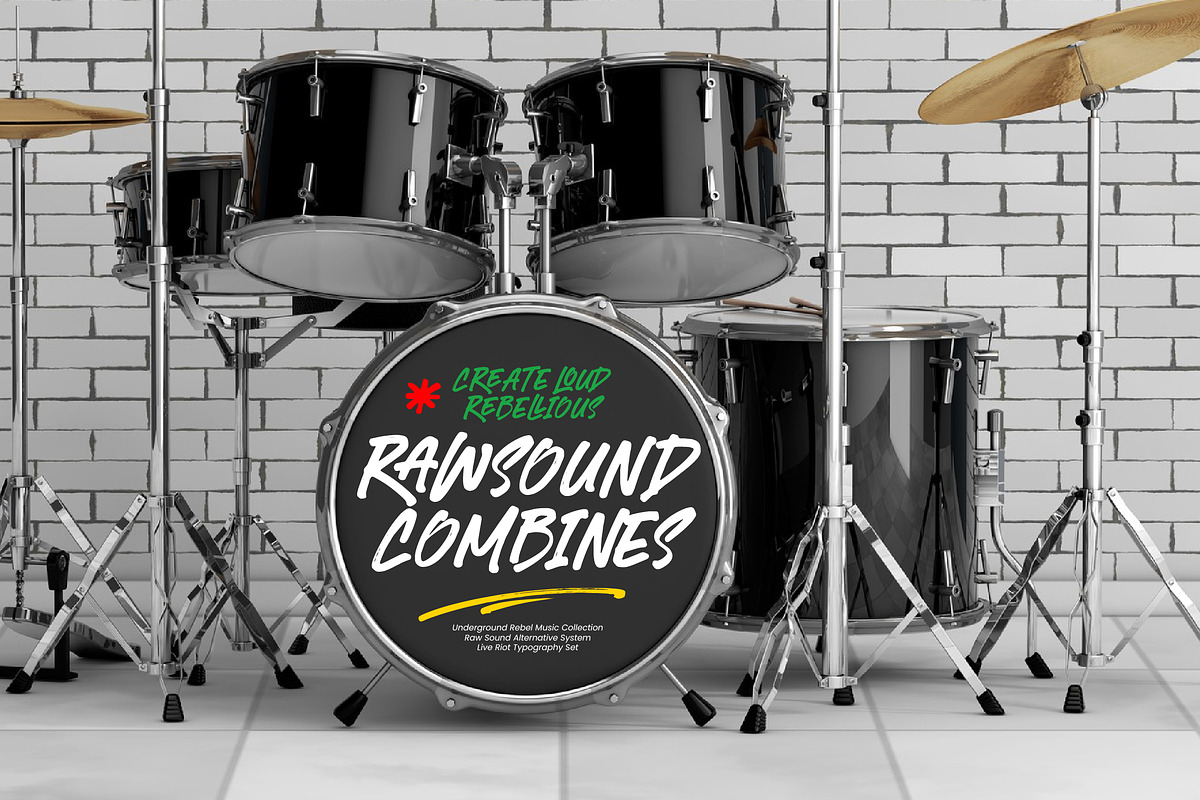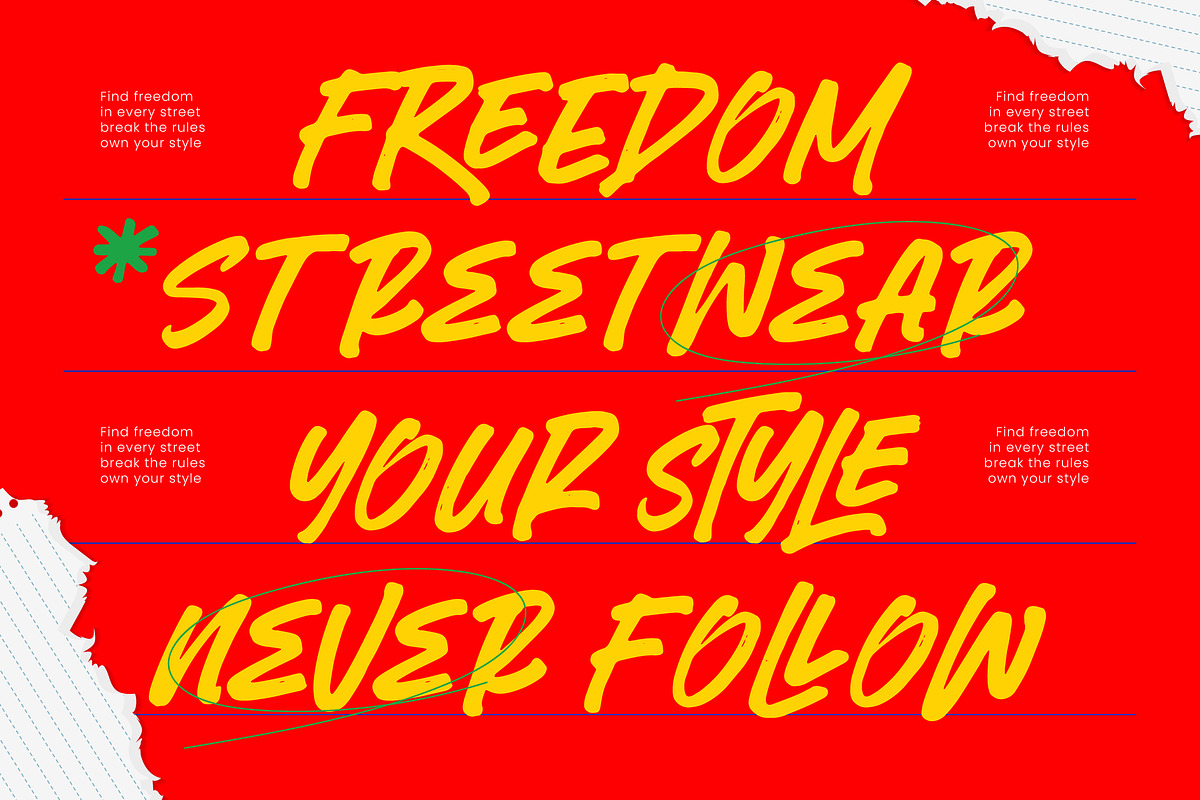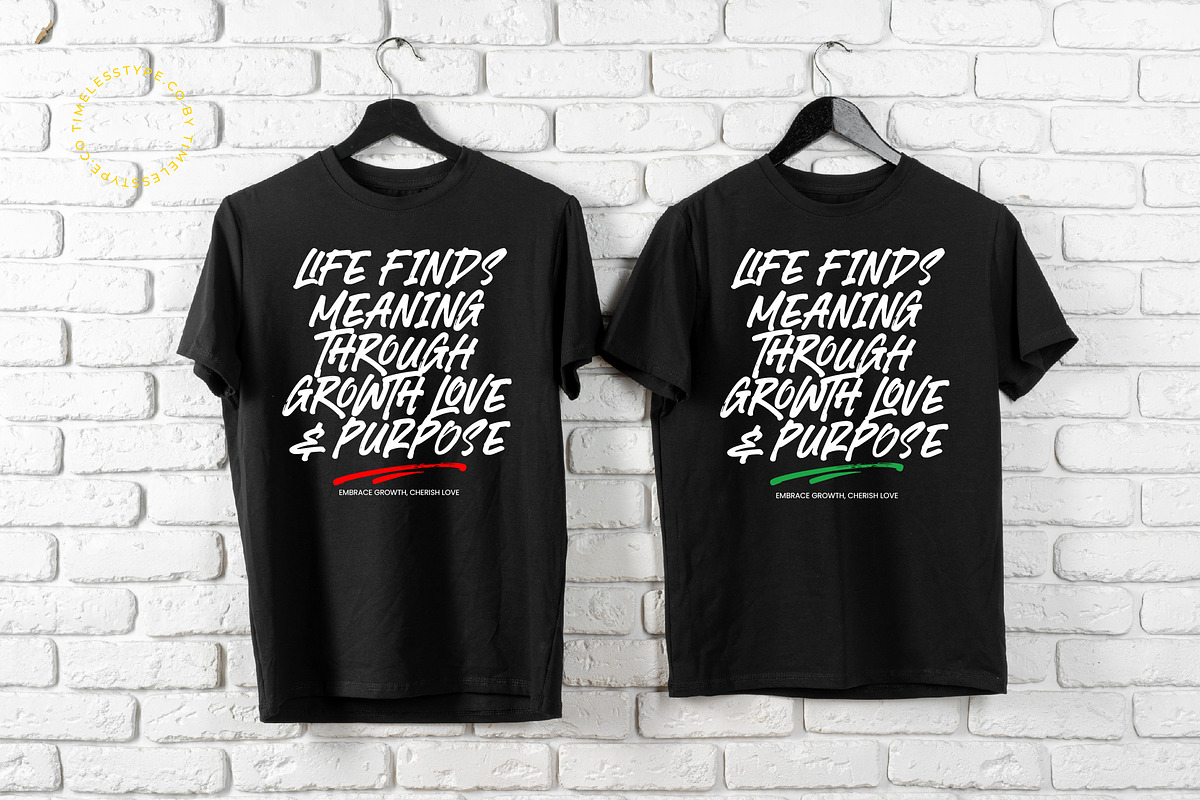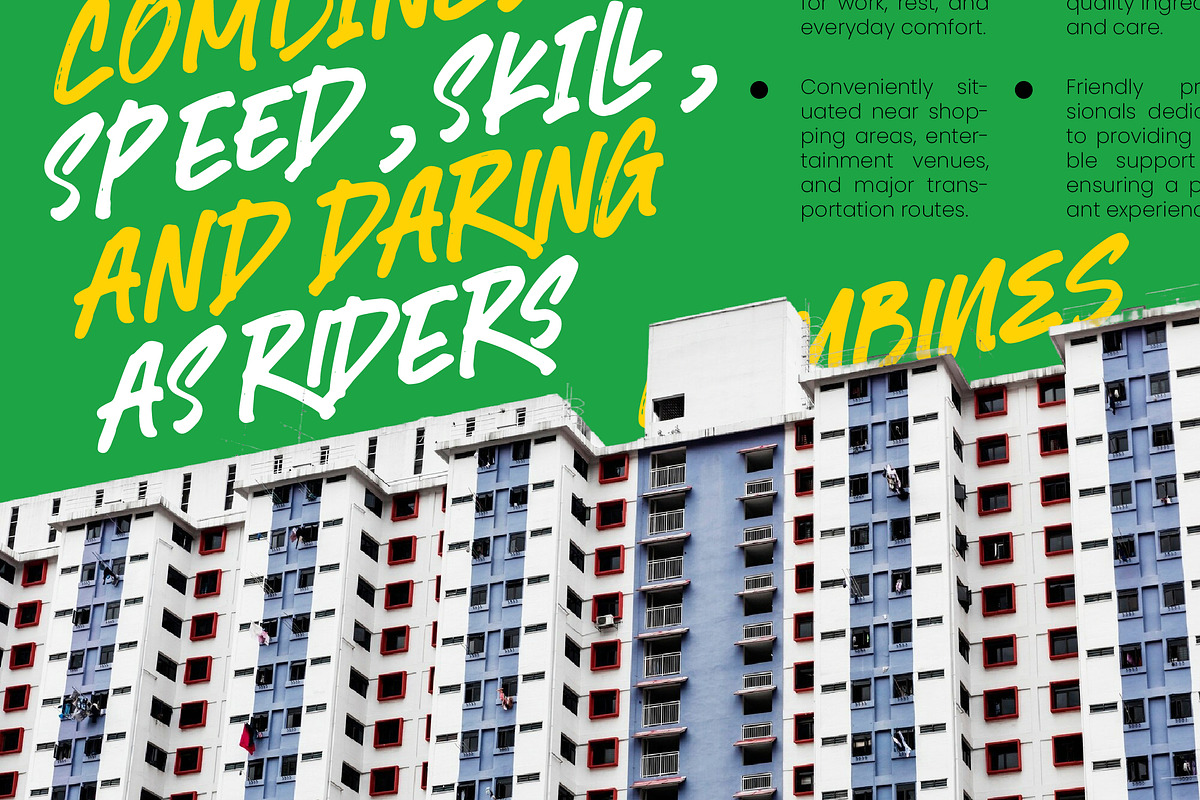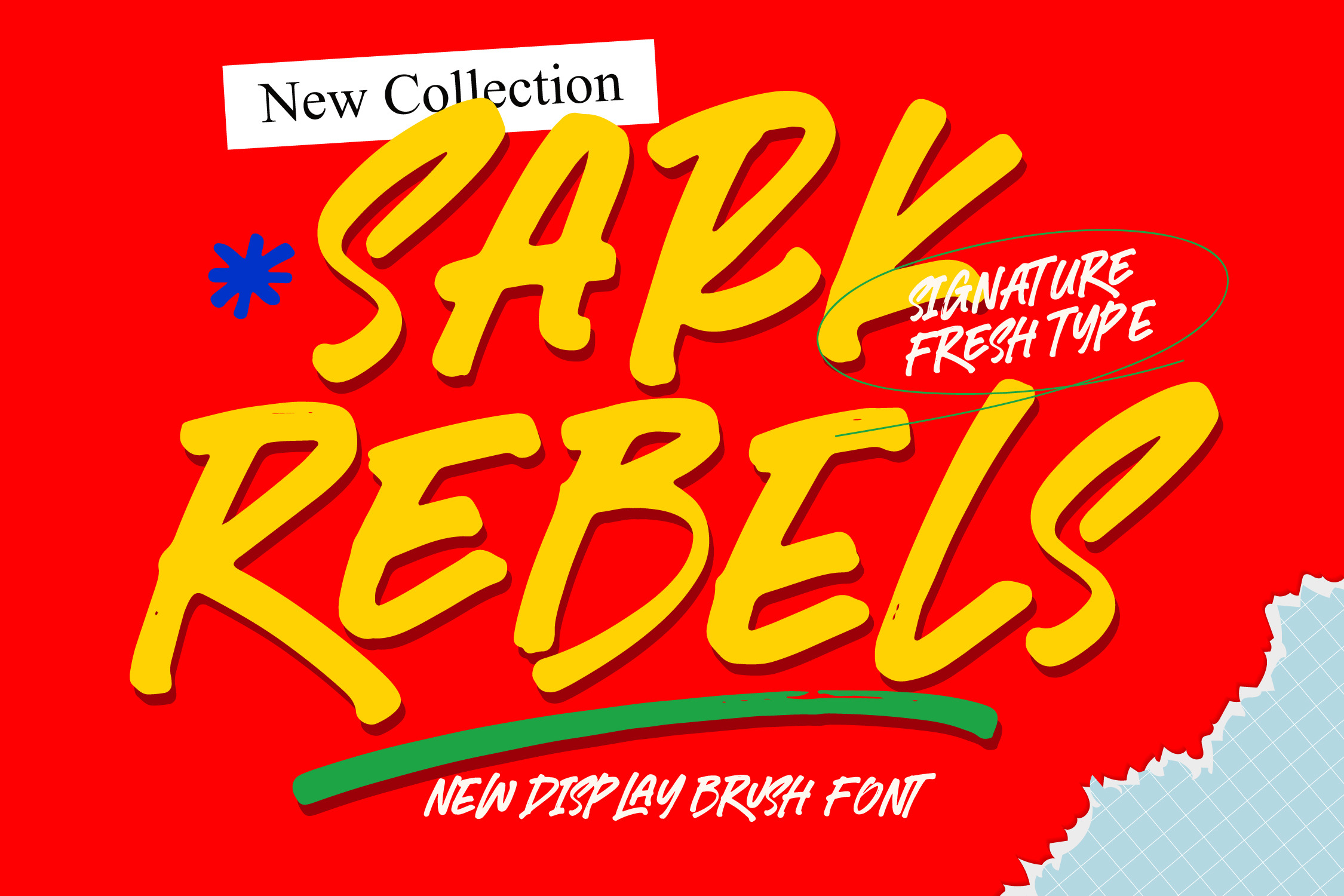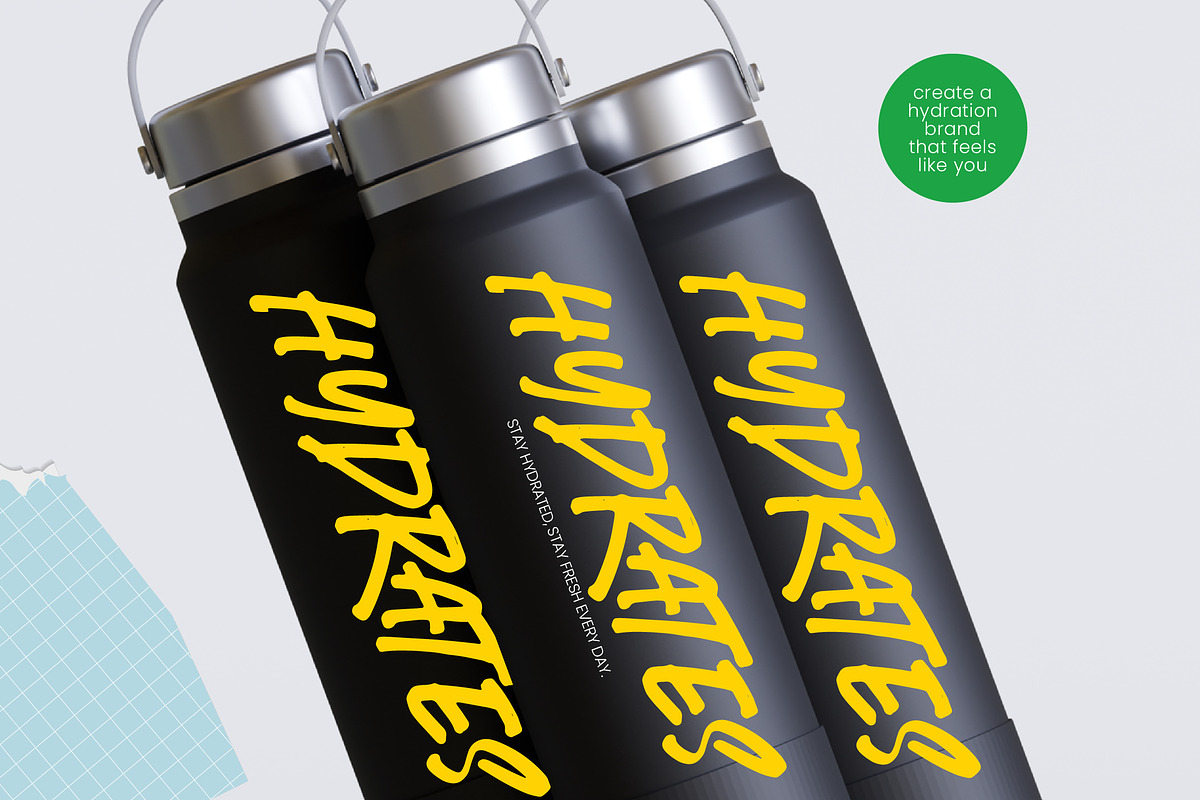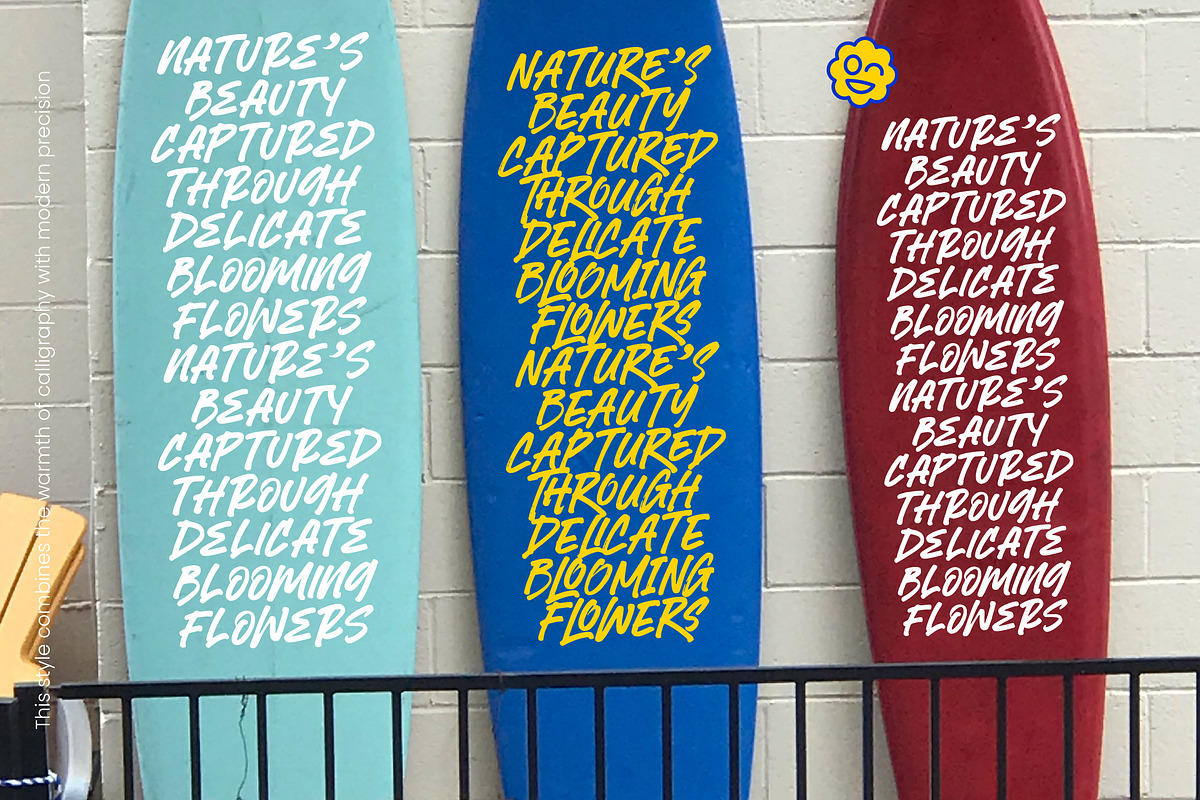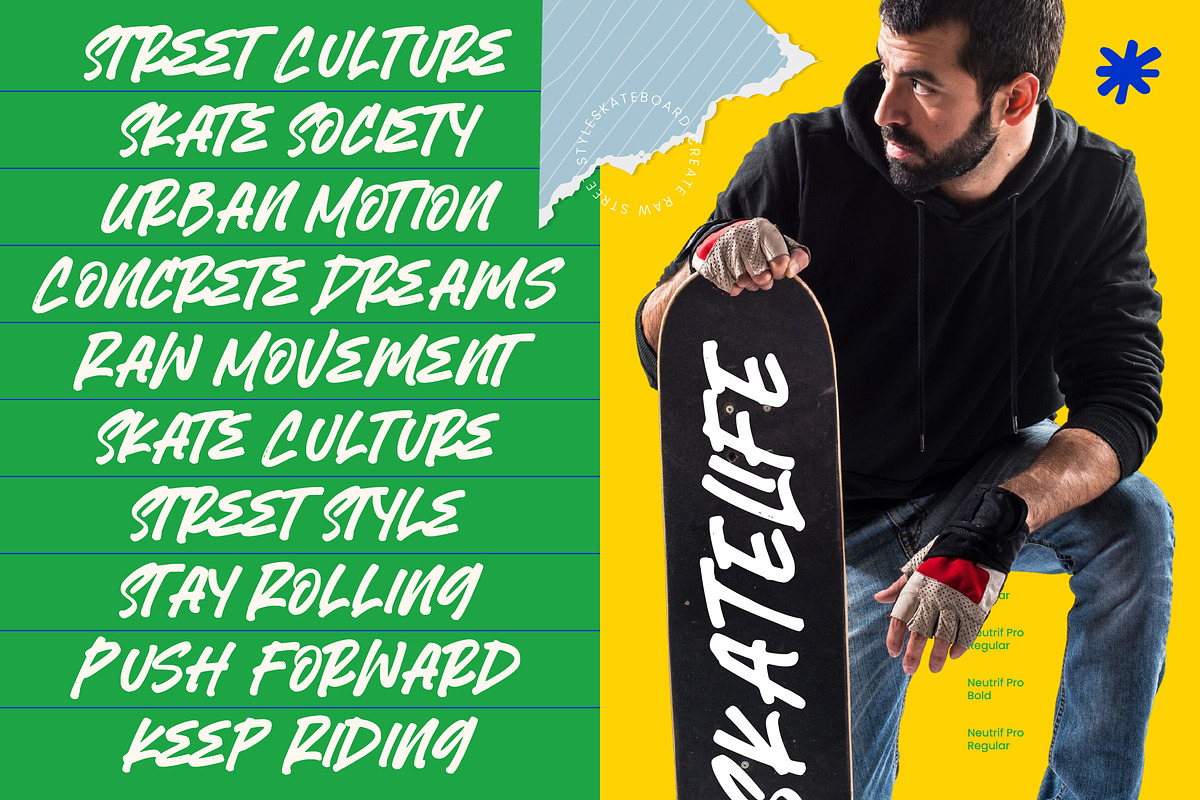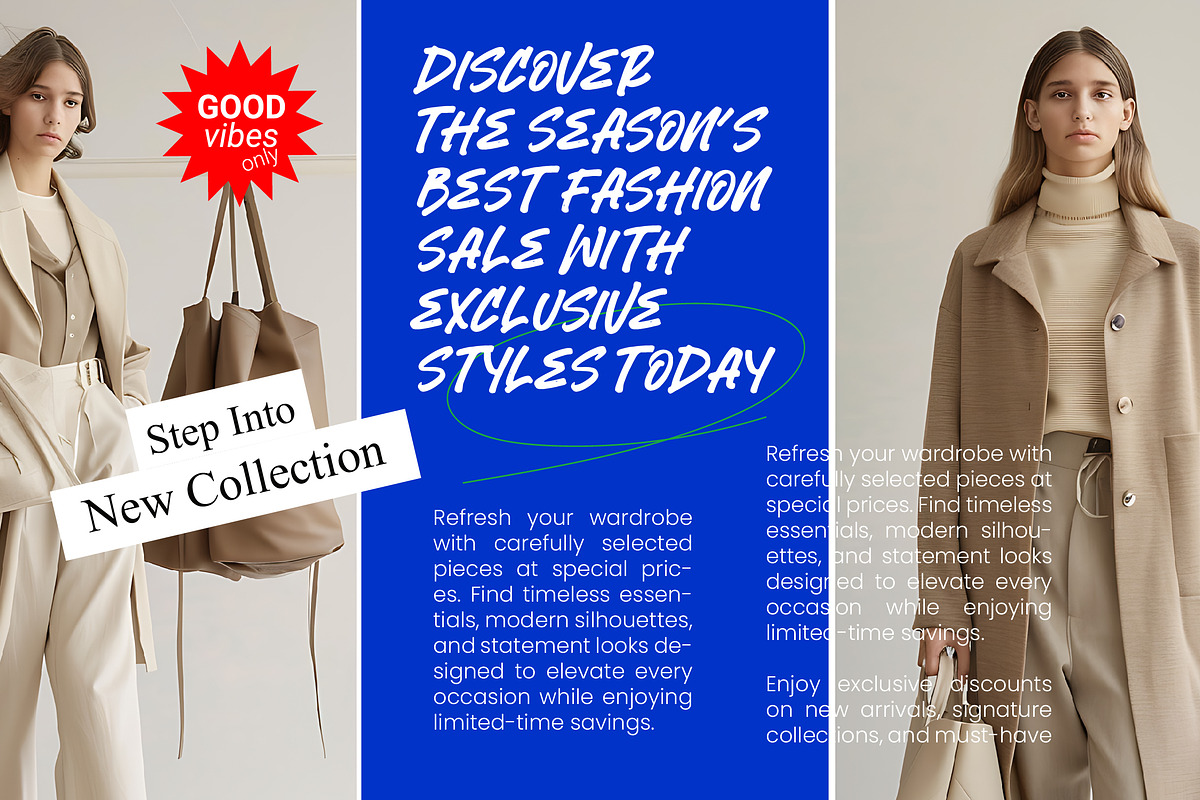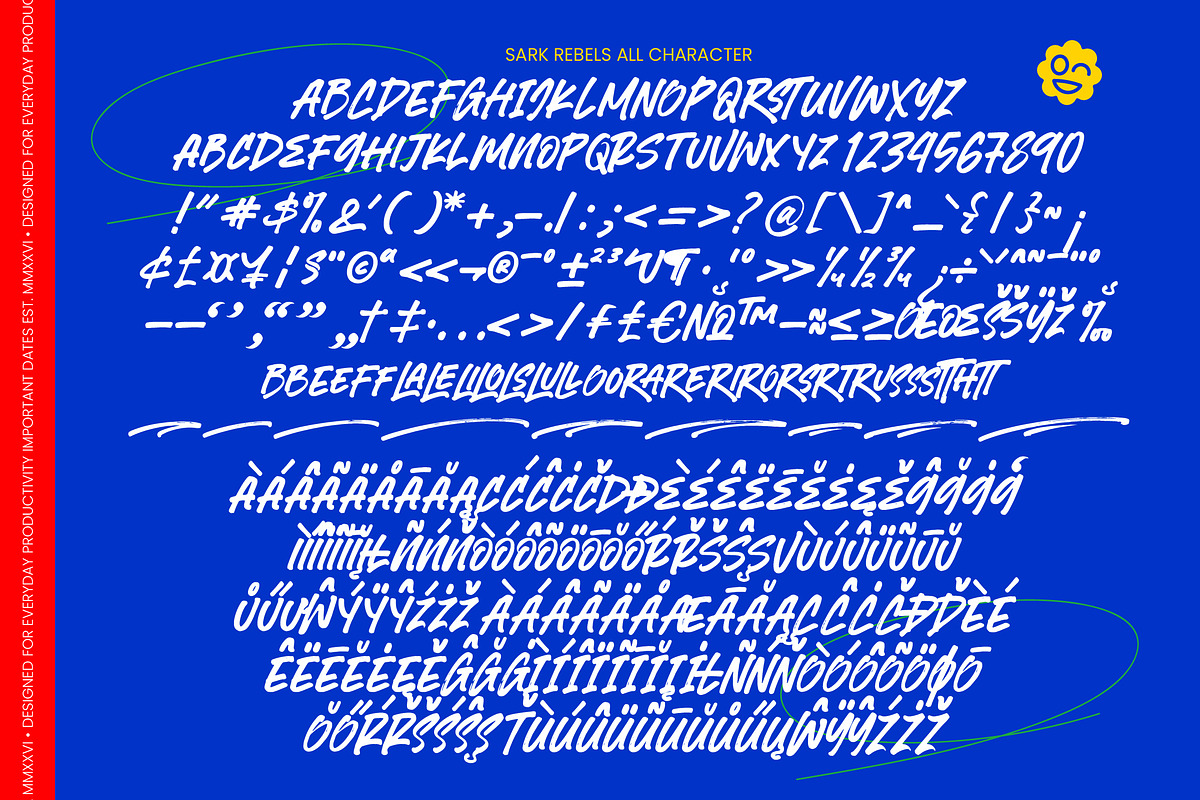
Sark Rebels Display Brush Font
Sark Rebels - Display Brush Font
Ignite your creative projects with the raw, high-octane energy of Sark Rebels - Display Brush Font. This expressive brush typeface captures the essence of street-style rebellion through its hand-drawn strokes and bold silhouette. Designed for maximum impact, Sark Rebels - Display Brush Font delivers a signature fresh type aesthetic that feels both authentic and undeniably modern, ensuring your headlines command immediate attention.
Elevate your brand identity with the unparalleled versatility of a truly dynamic display font. This typeface is the ideal solution for streetwear apparel, edgy packaging design, and high-impact social media graphics. Whether you are crafting a cinematic movie poster or a premium luxury branding project that requires a rebellious edge, Sark Rebels - Display Brush Font provides the perfect balance of artistic flair and commercial appeal.
Expand your creative reach across borders effortlessly while maintaining a consistent visual voice. With its extensive multilingual support, Sark Rebels - Display Brush Font adapts seamlessly across global markets, making it incredibly versatile for international projects. This broad linguistic compatibility ensures that Sark Rebels - Display Brush Font remains a global design asset, allowing your message to resonate with audiences regardless of geographical boundaries.
Transform your design portfolio with a bold professional edge by integrating this must-have brush typeface into your toolkit. The organic texture and fluid motion of Sark Rebels - Display Brush Font offer a custom hand-lettered look without the time-consuming manual process. Choose Sark Rebels - Display Brush Font today to give your visual communications a distinctive, urban-inspired personality that stands out in a crowded marketplace.